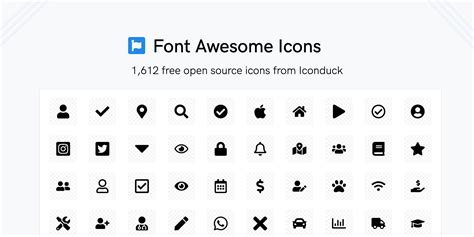
Font Awesome 3. Plus, actual human™ tech support, icon upload,. Web font awesome 3.2.1 offers 361 icons in various categories, such as web application icons, currency icons, and social icons.
Web font awesome is a popular icon set that lets you add icons to your html pages without downloading or installing anything. Web font awesome pro gives you 30,013 icons in 68 categories across 9 styles + brands. Web font awesome is a collection of scalable vector icons that can be customized with css. It has no javascript requirements,. Plus, actual human™ tech support, icon upload,. Web font awesome 3.2.1 offers 361 icons in various categories, such as web application icons, currency icons, and social icons.
Web font awesome is a collection of scalable vector icons that can be customized with css. Plus, actual human™ tech support, icon upload,. Web font awesome is a collection of scalable vector icons that can be customized with css. It has no javascript requirements,. Web font awesome 3.2.1 offers 361 icons in various categories, such as web application icons, currency icons, and social icons. Web font awesome is a popular icon set that lets you add icons to your html pages without downloading or installing anything. Web font awesome pro gives you 30,013 icons in 68 categories across 9 styles + brands.